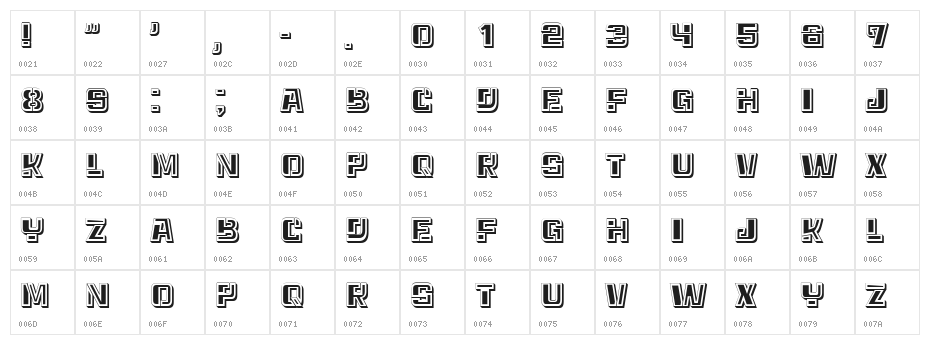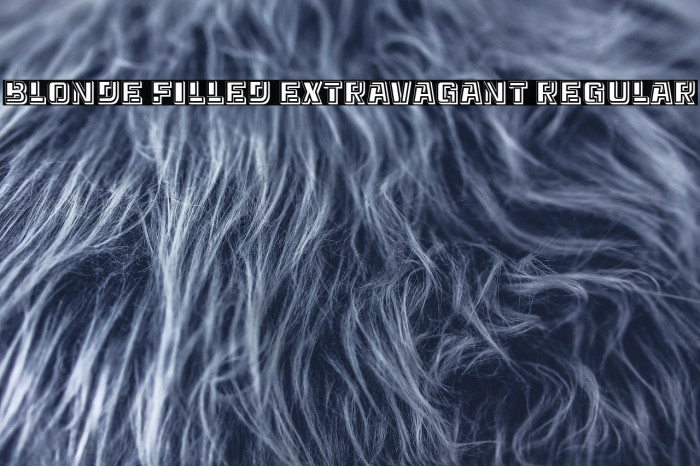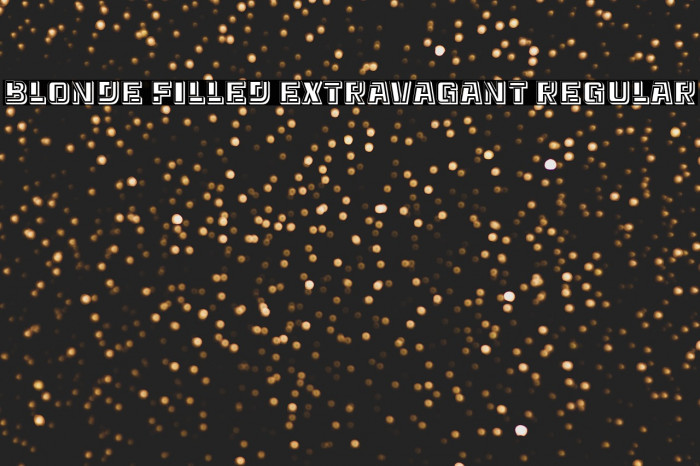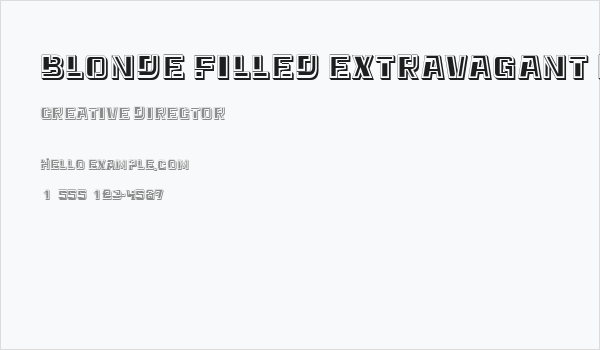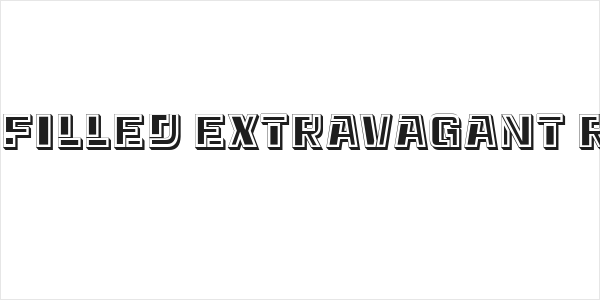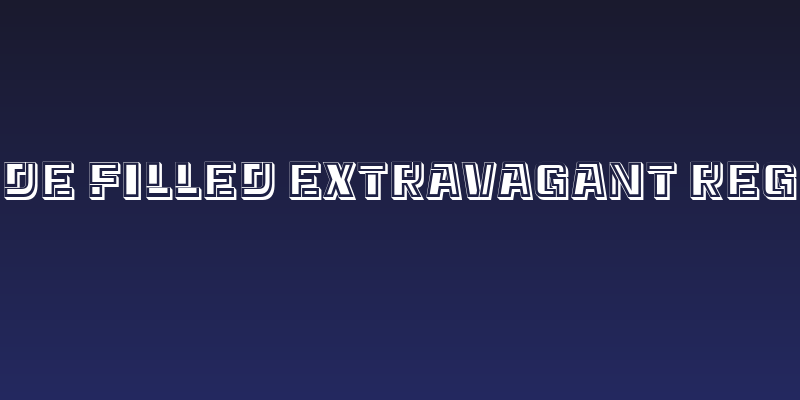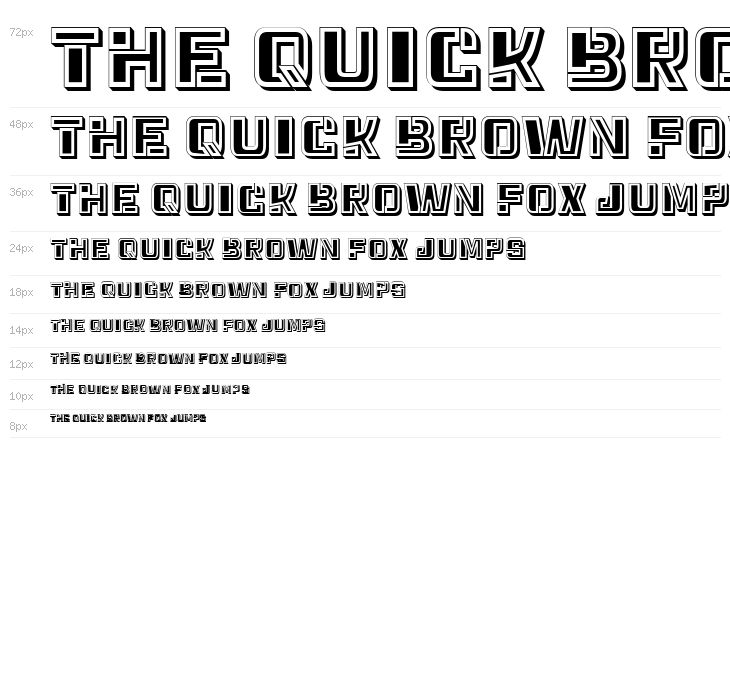
Blonde Filled Extravagant Regular Font
Blonde Filled Extravagant Regular Description
This font features a bold, decorative style with a three-dimensional effect created by its filled and outlined design. The characters are uppercase with a strong geometric structure, giving them a modern and extravagant appearance. The font's unique style is characterized by its thick strokes and shadow-like outlines, which add depth and visual interest. The numerals and special characters maintain the same bold and dynamic aesthetic, making this font suitable for eye-catching designs.
| Proposed Projects | Ideal for posters, headlines, branding, and any project requiring a striking and modern display font. |